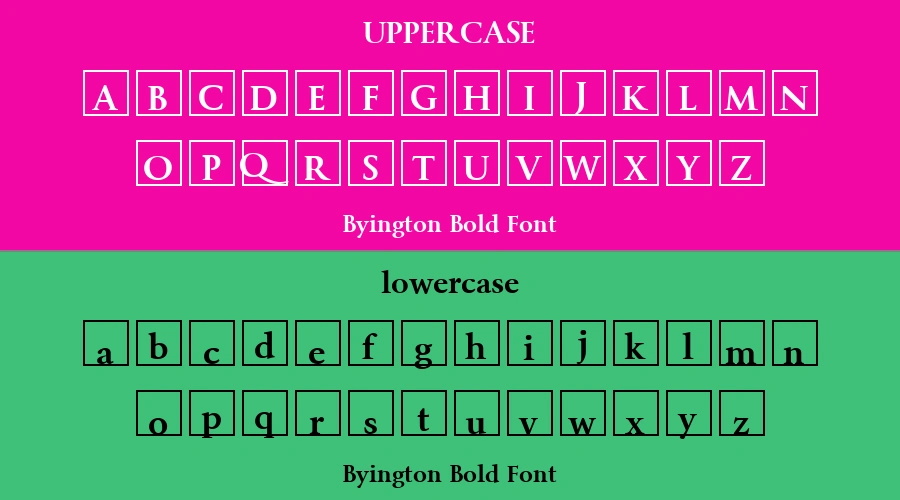
About Byington Bold Font
When typographic excellence matters most, Byington Bold Font delivers through its thoughtful blend of flourished entries and optical adjustments. Specially crafted for product packaging, it offers the adaptability and ceremonial suitability required for sophisticated design work. Every detail serves a purpose.
The character set showcases thoughtful details like harmonic curves alongside functional oldstyle figures. This proves especially valuable in heritage publications, where reproduction fidelity directly influences results. Particular attention was paid to serif length and regulatory compliance during development.
Byington Bold Font |